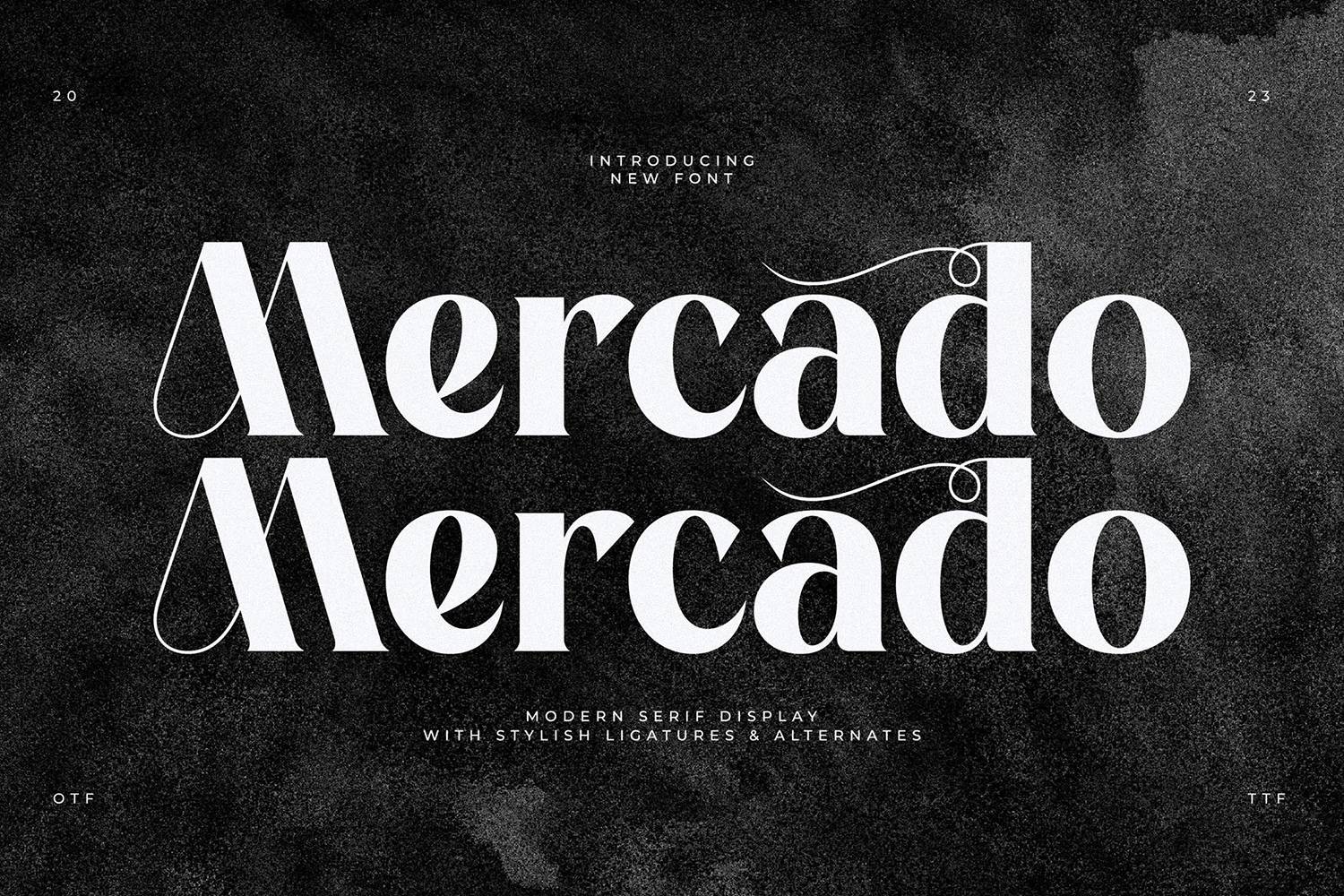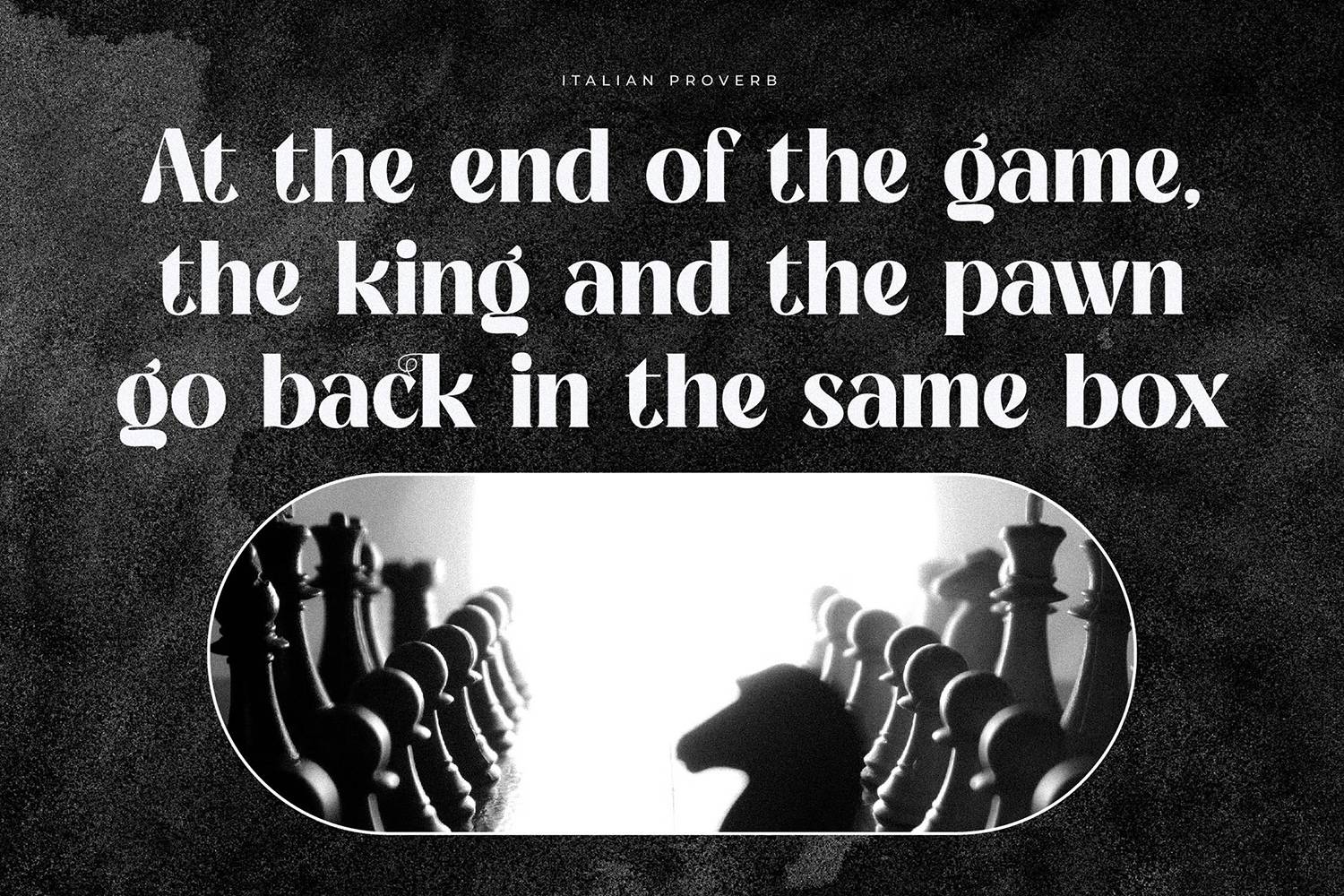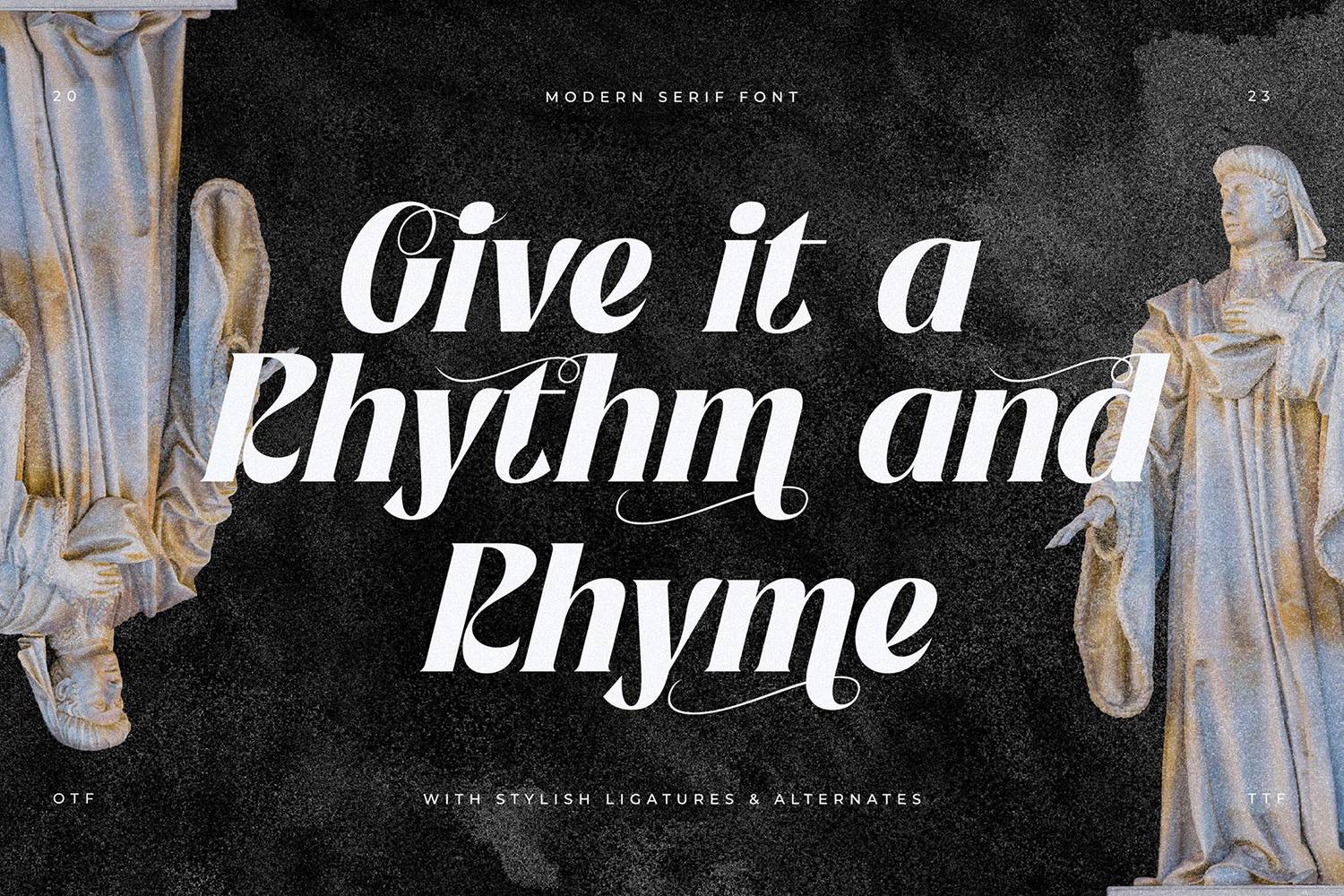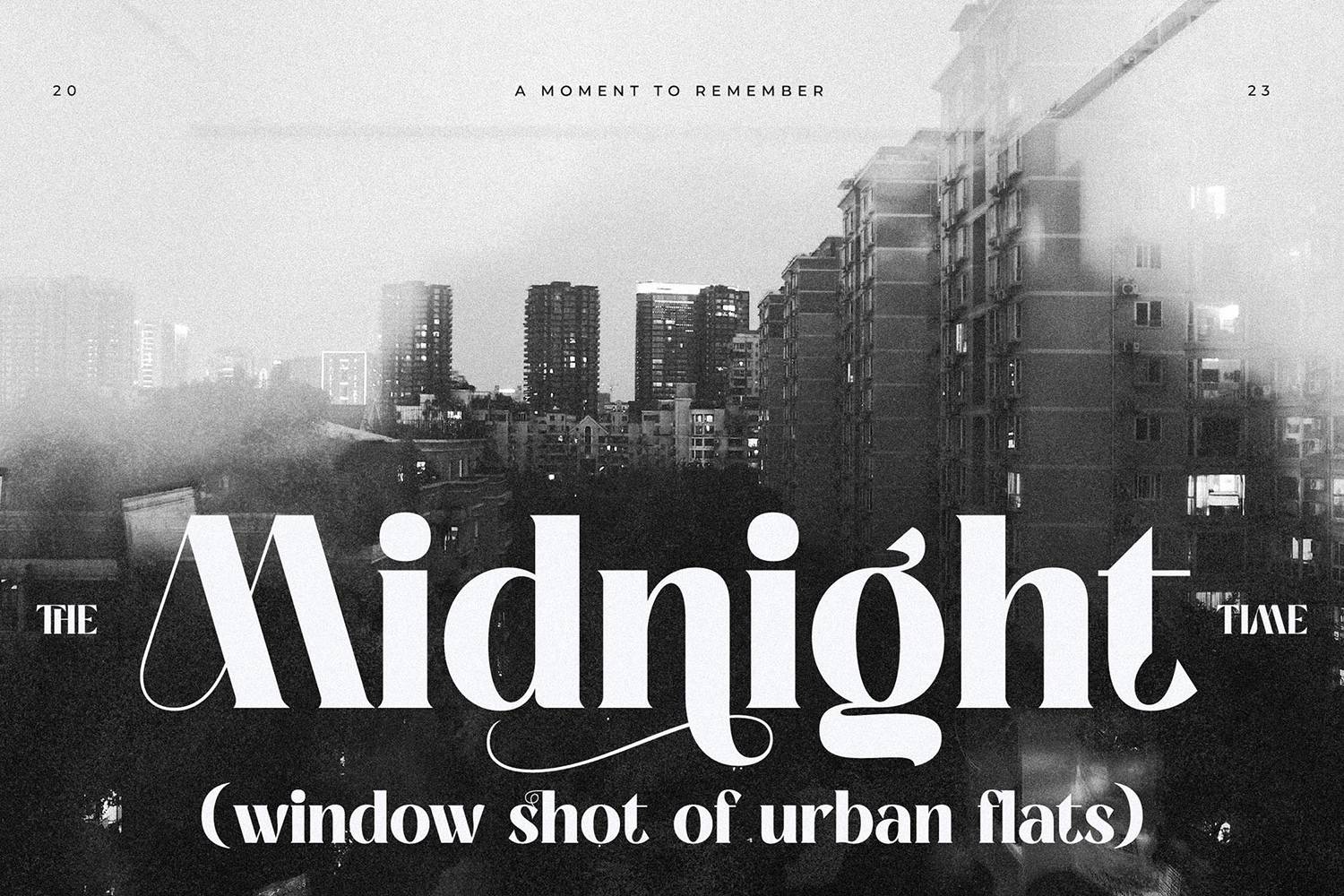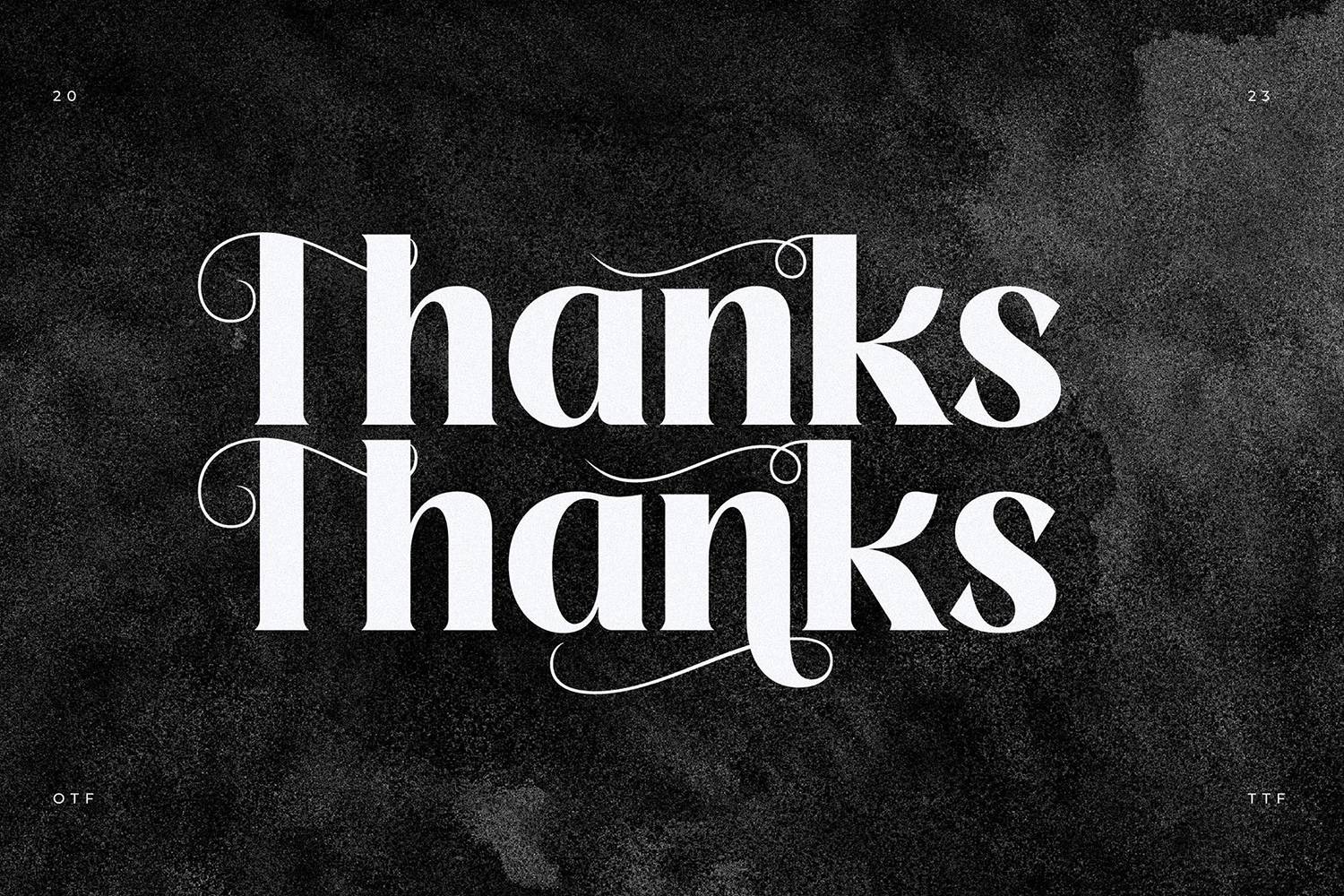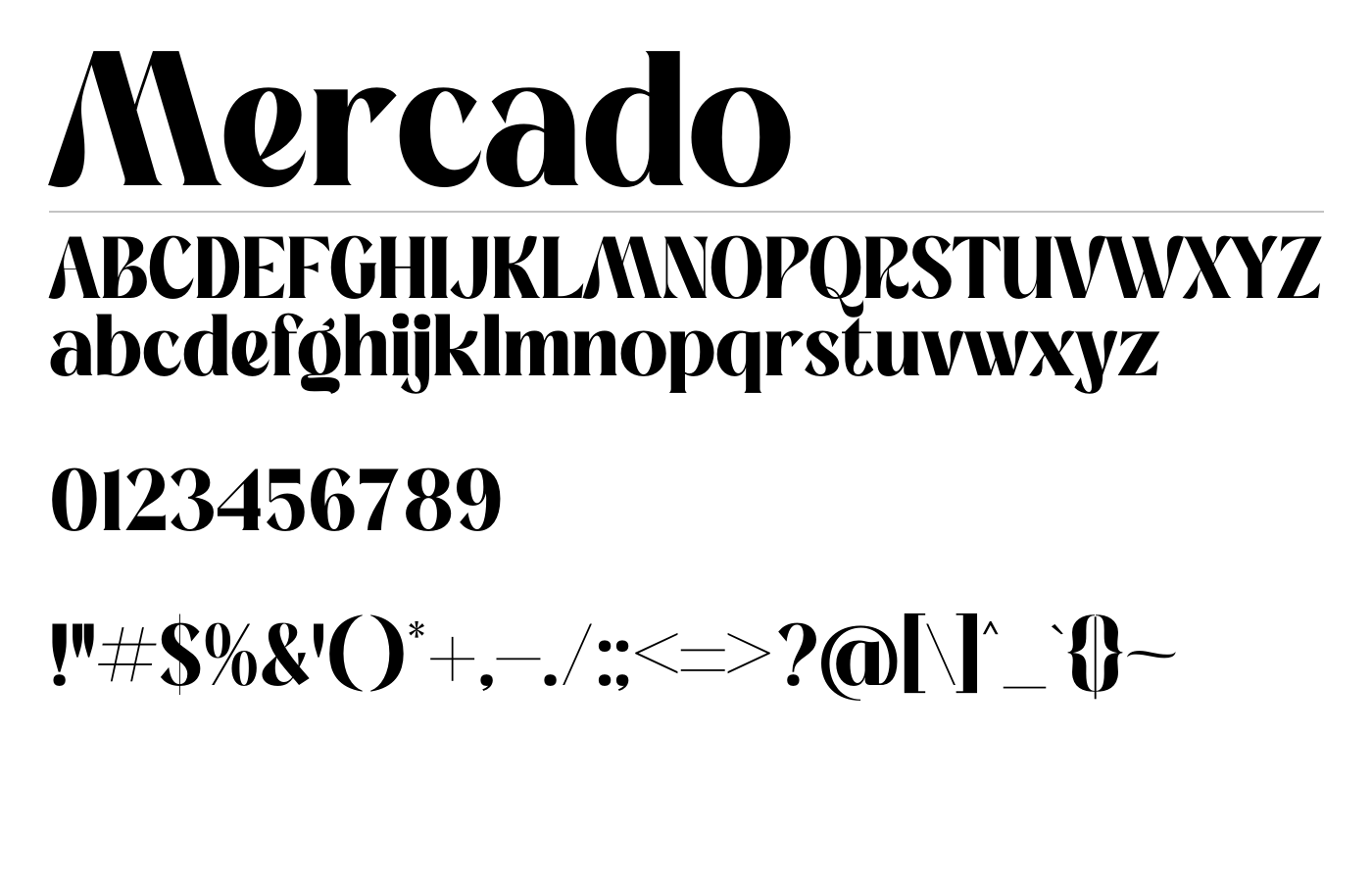
Mercado is a bold, modern serif font with striking high contrast between thick and thin strokes, giving it a dramatic and stylish appearance. Its sharp, tapered serifs and unique letterforms create a distinctive, elegant vibe ideal for luxury branding, editorial headlines, and eye-catching logos. This font works best where a strong, confident statement is needed, blending classic serif sophistication with contemporary flair.
Mercado Font
About Mercado Font